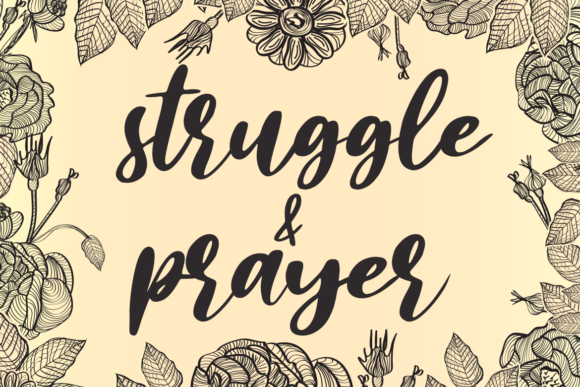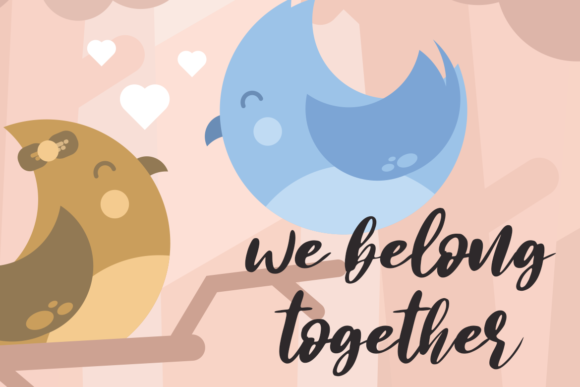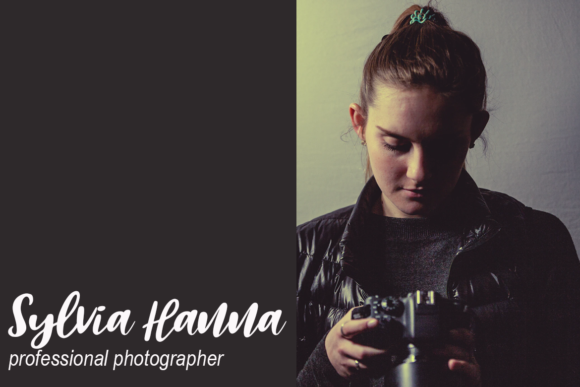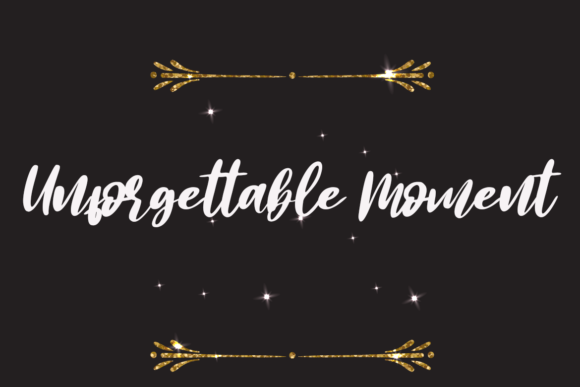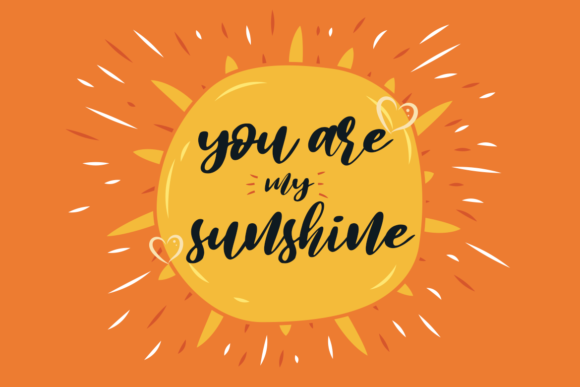
When the Perfect Font Strikes
Have you ever been working on a design project, and suddenly, everything falls into place? The colors, the layout, the typography – it all comes together in a harmonious balance that leaves you feeling proud and accomplished. For many designers, this moment is what makes all the hard work worth it.
This is exactly the feeling you’ll get when you use the Amsyong Moment Font in your next design project. With its classic, yet friendly style, this font is the perfect addition to any project that needs a touch of whimsy and elegance. Whether you’re creating a logo, a social media graphic, or a wedding invitation, Amsyong Moment Font is sure to make your design stand out.
Amsyong Moment Font Key Features
- Unique Characteristics: Hand-drawn, cursive, script, elegant, and stylish font, perfect for creative projects, invitations, and personal statements.
- Font Style: Regular, Italic, Bold, and Bold Italic, offering versatility and flexibility for various design applications.
Amsyong Moment Font Review
Amsyong Moment Font is a unique, hand-drawn typeface that has its own distinct charm. It works well in situations where you want to add a touch of personality to your design. ✨ The playful, cursive feel of the font is perfect for creating eye-catching headings or titles. It’s also versatile and can be used in various contexts, from social media graphics to advertising materials. ✨
However, Amsyong Moment Font has its limitations. ⚠️ One of the main issues is that it can be difficult to read in certain situations, especially when used for large blocks of text. The font’s irregular letterforms can make it challenging to follow the flow of the text. ⚠️ Additionally, the font’s aesthetic may not be to everyone’s taste, and some designers may find it too playful or cursive. ⚠️
- Unique, hand-drawn design
- Perfect for adding personality to your design
- Versatile and can be used in various contexts
- Can be challenging to read in certain situations
- May not be to everyone’s taste
Overall, Amsyong Moment Font is a solid choice for designers looking to add a touch of personality to their work. While it has its limitations, the font’s unique design and versatility make it a great option for the right project.
For best results, use Amsyong Moment Font in combination with bold and italic styles to add emphasis to your text. Use it for headings, titles, and captions. It’s also great for creating unique and creative social media graphics, posters, and flyers.
Alternatives to Amsyong Moment Font
Pacifico is a beautiful, elegant script font that works well for branding, invitations, and other creative projects. It is ideal for designs that require a touch of sophistication and romance. Compared to Amsyong Moment Font, Pacifico is more cursive and less quirky, making it a great choice for projects that require a more refined look.
Great Vibes is a modern, handwritten font that is perfect for creative projects, such as posters, flyers, and social media graphics. It is ideal for designs that require a playful and energetic feel. Compared to Amsyong Moment Font, Great Vibes is more dynamic and less delicate, making it a great choice for projects that require a bold and eye-catching look.
Carolyna Pro is a sophisticated, script font that is ideal for branding, packaging, and other creative projects. It is perfect for designs that require a touch of elegance and sophistication. Compared to Amsyong Moment Font, Carolyna Pro is more refined and less quirky, making it a great choice for projects that require a more polished look.
Alex Brush is a beautiful, handwritten font that is perfect for creative projects, such as posters, flyers, and social media graphics. It is ideal for designs that require a touch of elegance and sophistication. Compared to Amsyong Moment Font, Alex Brush is more refined and less quirky, making it a great choice for projects that require a more polished look.